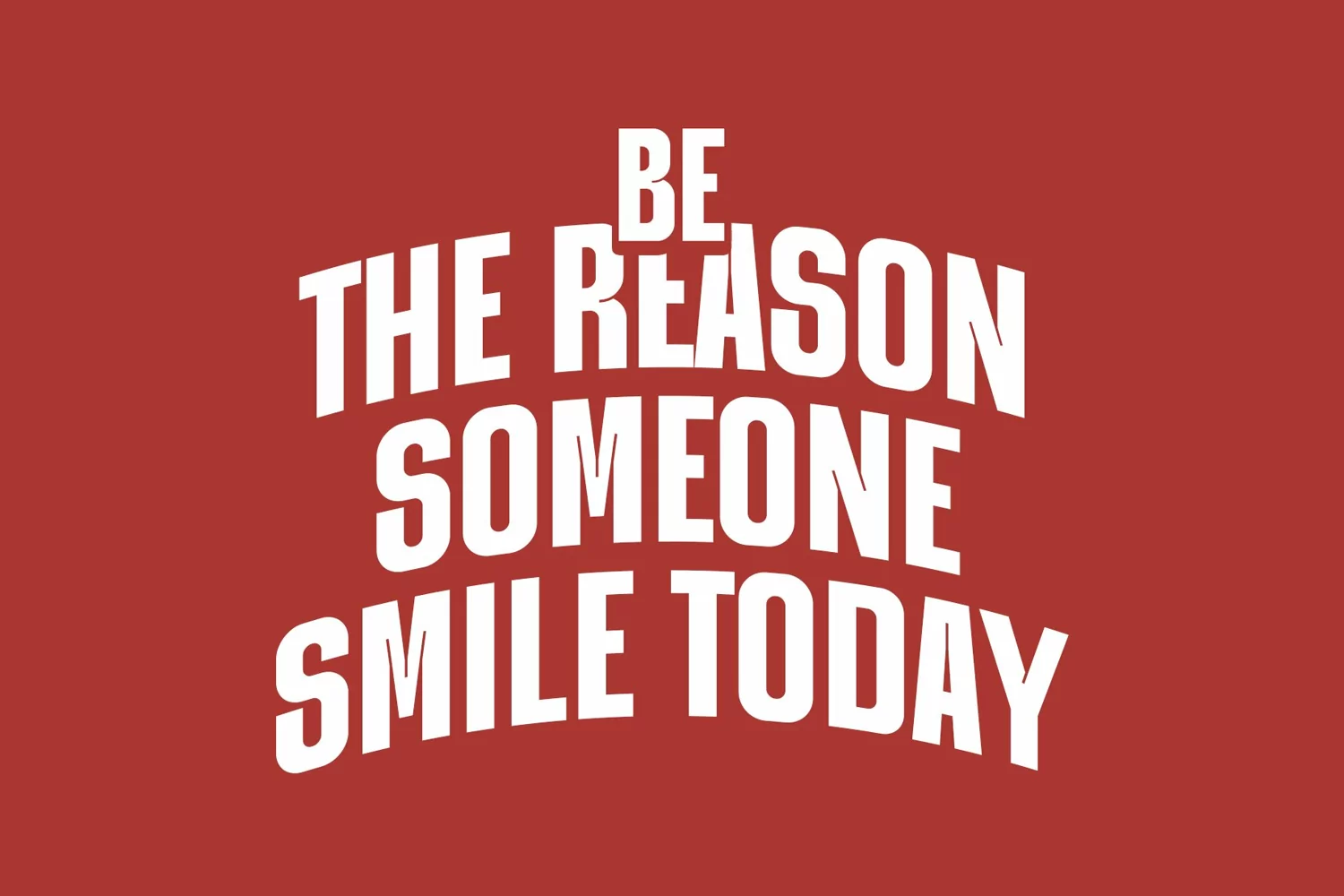
Maffoy is a simple, condensed sans serif typeface with a bold and complex personality. It is perfect for headlines, billboards, magazines, websites, titles, posters, branding, and logos. With some of ligatures, alternates, and other features to choose from, you can make your project stand out from the rest.